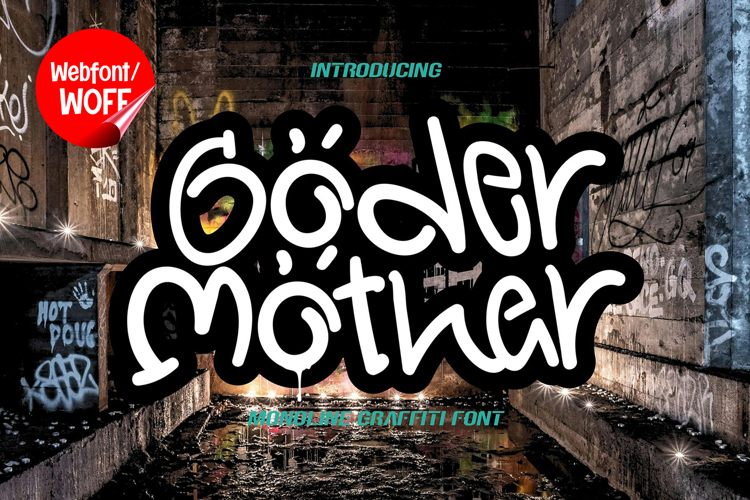
Goder Mother | Handwritten Graffiti Webfont
Goder Mother is a handwritten graffiti webfont designed to capture the raw, expressive feel of street lettering in a clean and usable digital format. With its natural strokes and free-flowing structure, this font reflects the spontaneity of hand-drawn graffiti while maintaining clarity for modern website design. It is an ideal choice for projects that require an urban, creative, and energetic visual identity.
Goder Mother features a complete set of uppercase characters designed with a handwritten graffiti style. Each letter carries natural variation, giving the text an organic and authentic appearance. These expressive forms are perfect for headlines, banners, hero sections, and featured content where strong visual presence is needed. The handwritten style adds movement and energy, making designs feel more dynamic.
In addition to letters, the font includes numbers and punctuation, allowing for flexible use across various website elements. It works well for promotional content, event details, call-to-action text, and navigation highlights. Each character maintains a consistent graffiti style, ensuring a cohesive and unified look throughout the layout.
With multilingual support, Goder Mother includes a wide range of accented characters, making it suitable for international websites. This allows content to be displayed clearly across different languages while preserving the handwritten graffiti aesthetic. It is a practical option for global brands, creative agencies, and digital platforms.
The handwritten graffiti style of Goder Mother makes it especially suitable for urban-themed websites, streetwear brands, music platforms, creative portfolios, and lifestyle projects. Its expressive strokes help create a bold and engaging visual identity, making websites stand out in a competitive digital environment. The natural flow of the letters adds a sense of authenticity and artistic freedom.
Despite its expressive and freehand appearance, Goder Mother is designed with readability in mind. The spacing and structure of each character are carefully balanced to ensure clarity, particularly in display sizes. This makes it effective for both large headings and shorter interface elements where legibility is important.
Goder Mother is a webfont that blends handwritten graffiti aesthetics with modern digital usability. Its natural strokes, expressive form, and urban influence create a distinctive look that enhances website design. For projects that require a bold, creative, and street-inspired typographic style, Goder Mother offers a strong and engaging solution.